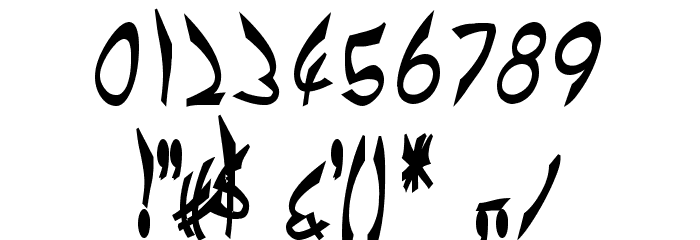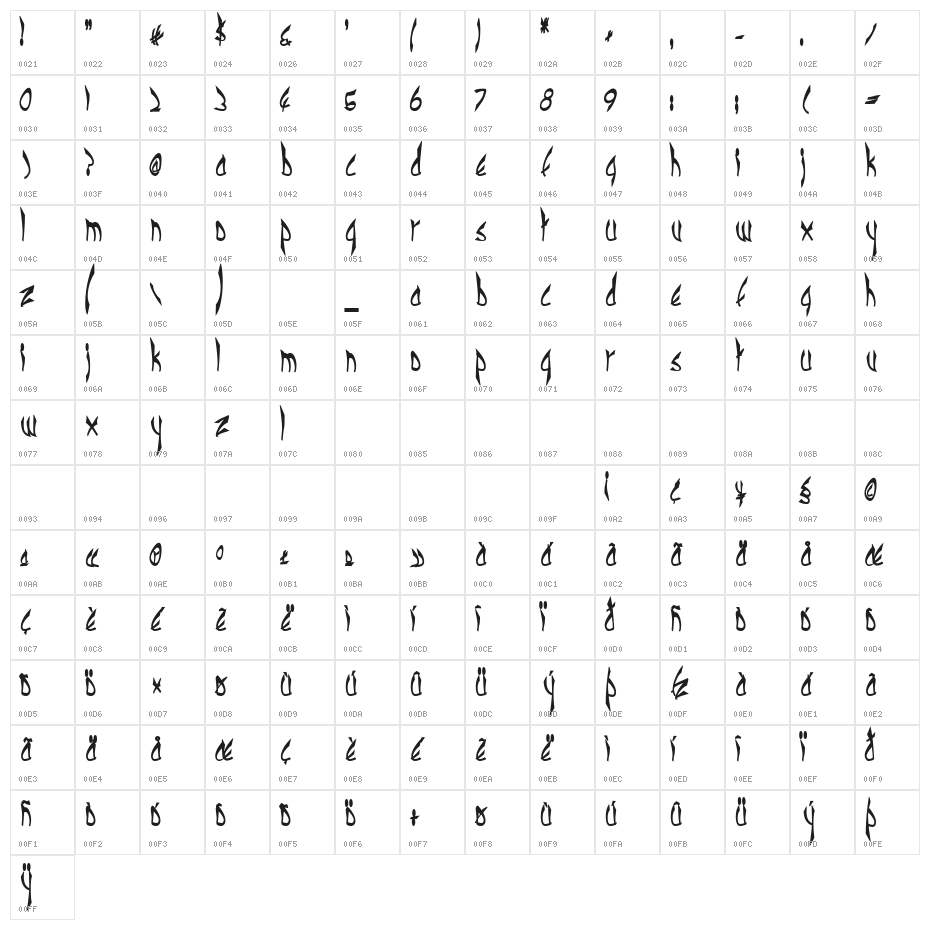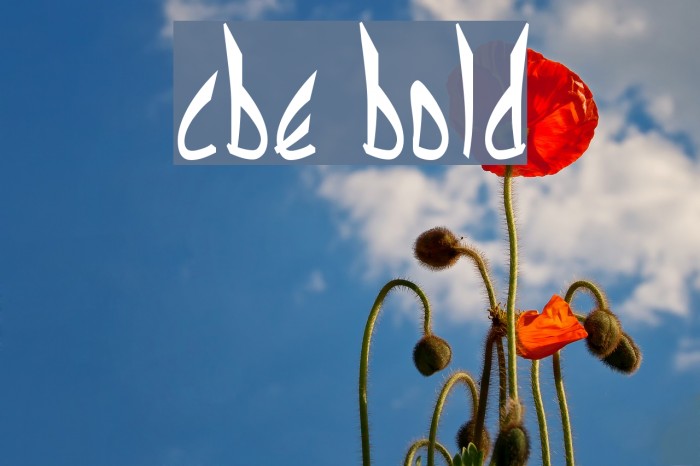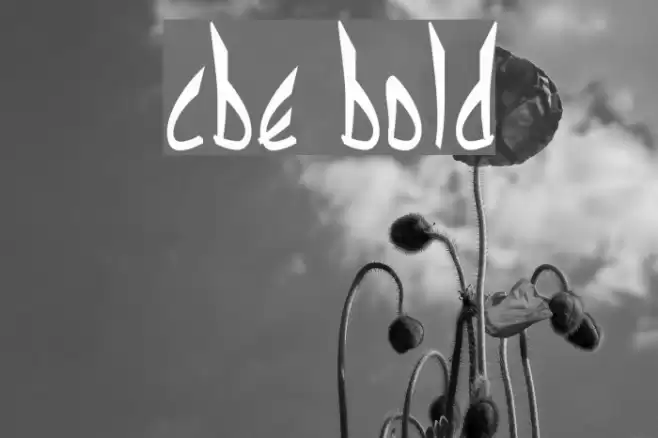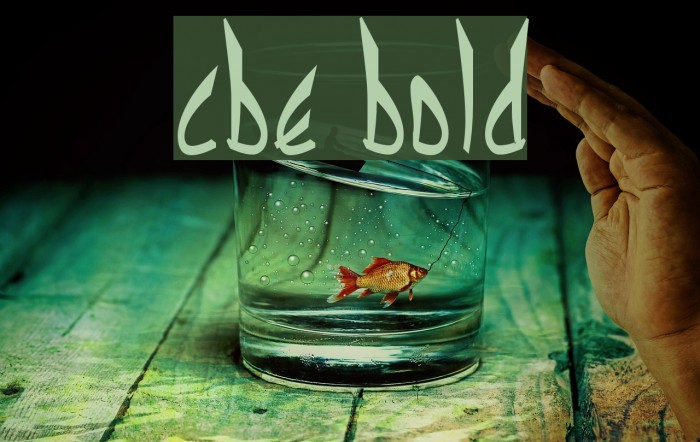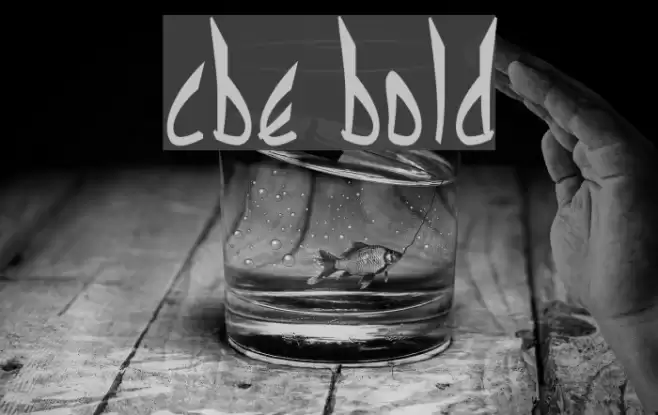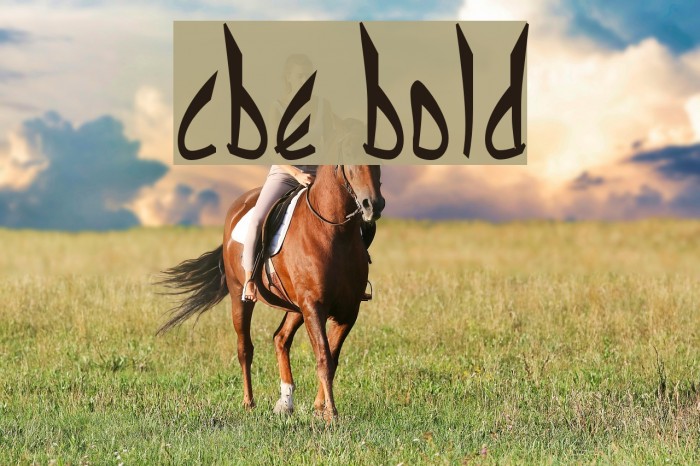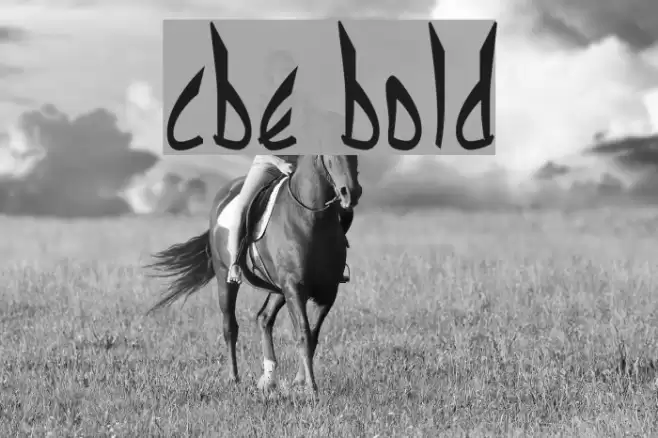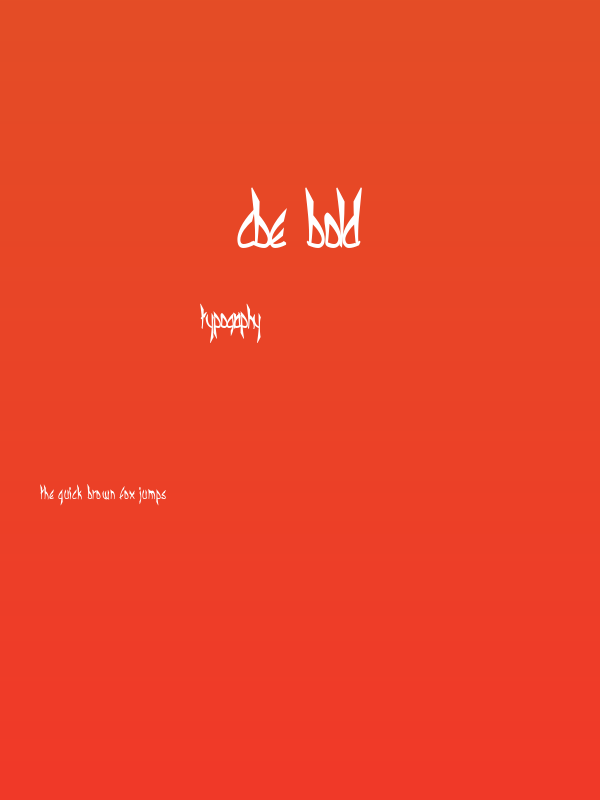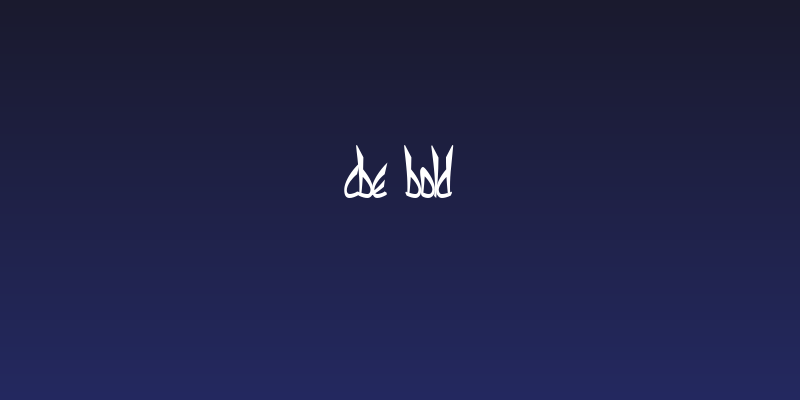
cbe Bold Font
cbe Bold Description
This font features a bold and dynamic style with sharp, angular lines and a distinctively modern flair. The characters are crafted with a sense of movement and energy, making them stand out with their unique and artistic appearance. The uppercase and lowercase letters maintain a consistent style, with exaggerated curves and pointed edges that give the font a dramatic and expressive look. The numbers and special characters follow the same design principles, ensuring a cohesive visual identity. This font is ideal for projects that require a bold statement and a touch of creativity.